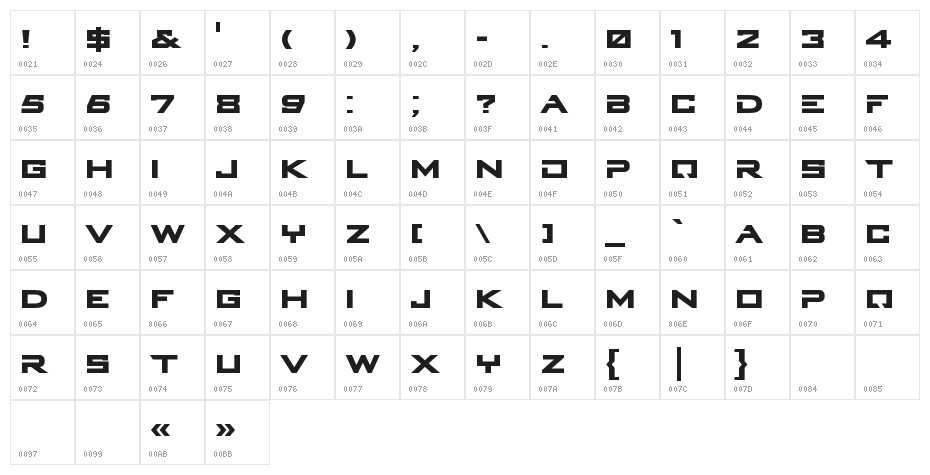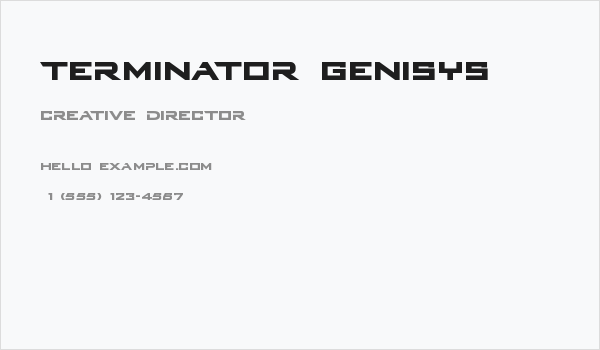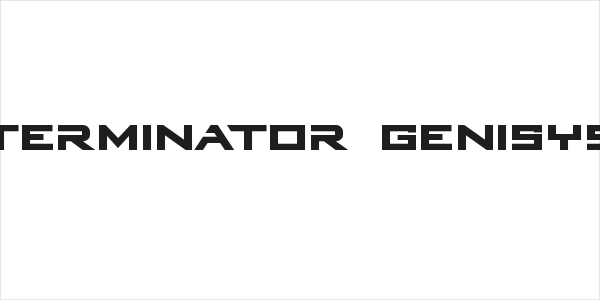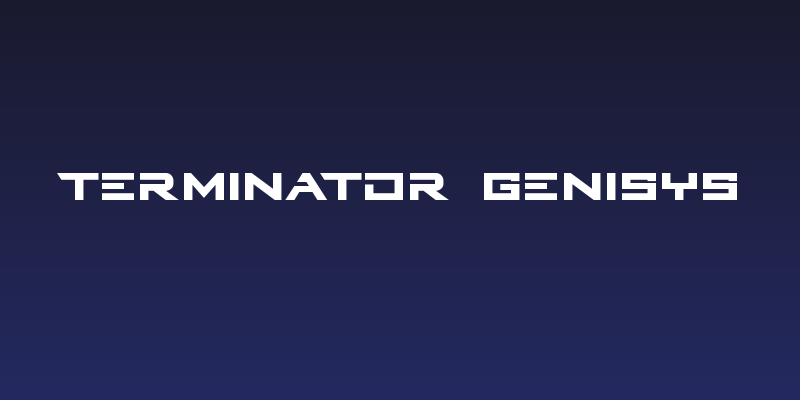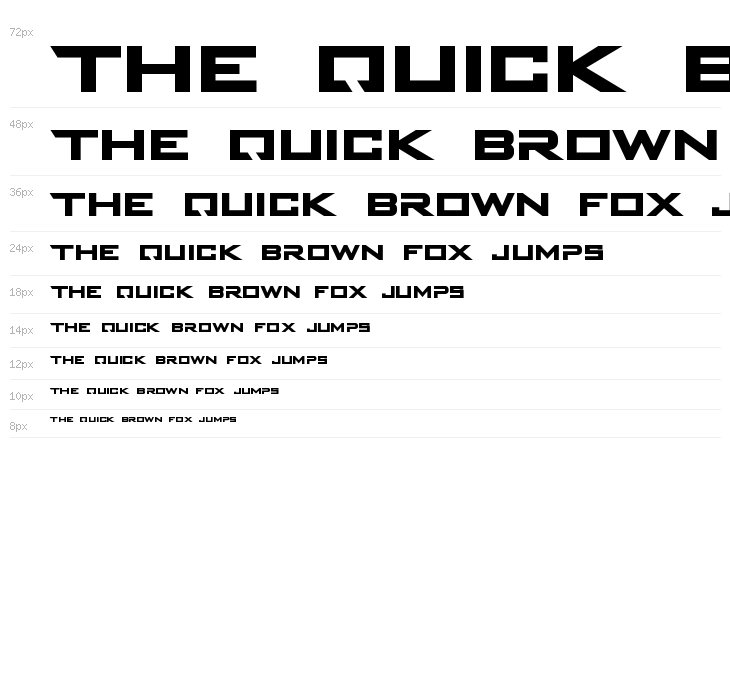
Terminator Genisys Font
Terminator Genisys Description
This font features a bold, futuristic design with sharp angles and a geometric structure. The uppercase letters are particularly striking, with a strong presence and a sense of movement. The lowercase letters maintain the same angular style, ensuring consistency across the typeface. Numbers and special characters are designed to match the boldness and angularity of the letters, making them suitable for impactful designs. The font's overall appearance is modern and dynamic, ideal for projects that require a strong visual impact.
| Proposed Projects | Ideal for sci-fi movie posters, video game titles, technology branding, and futuristic-themed designs. |